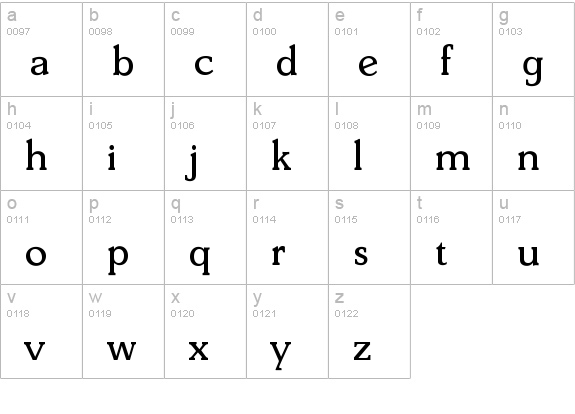
Derringer-Regular is the standard, neutral variant in the Derringer typeface family \xE2\x80\x94 well suited to general body text, paragraphs, and standard typographic work.
Derringer-Regular is a versatile and elegant font that exudes a timeless charm. With its clean lines and classic design, this font is perfect for a wide range of projects, from branding to editorial design. Its balanced proportions and subtle details make it easy to read and visually appealing. What's even better is that Derringer-Regular is available for free download at FontsMarket.com. Whether you're a designer looking to add a touch of sophistication to your work or a writer in need of a stylish typeface for your next project, Derringer-Regular has got you covered. Don't miss out on the opportunity to enhance your creations with this beautiful font, download it today and elevate your designs to the next level.